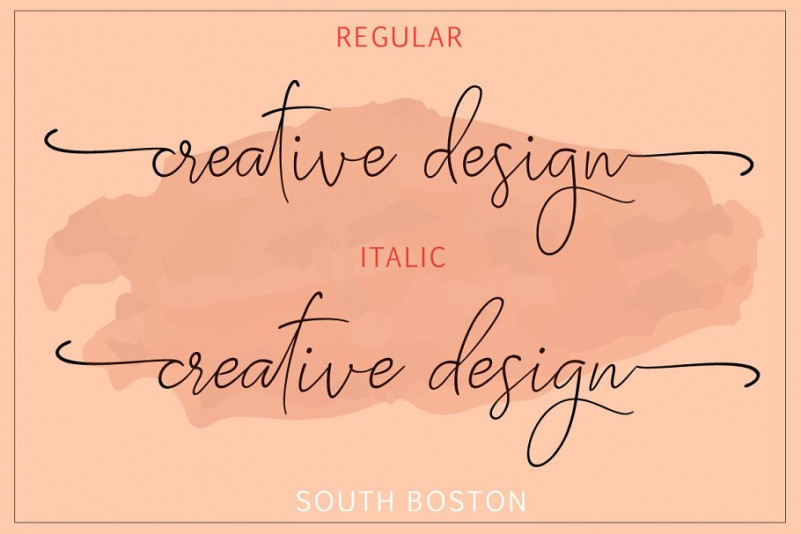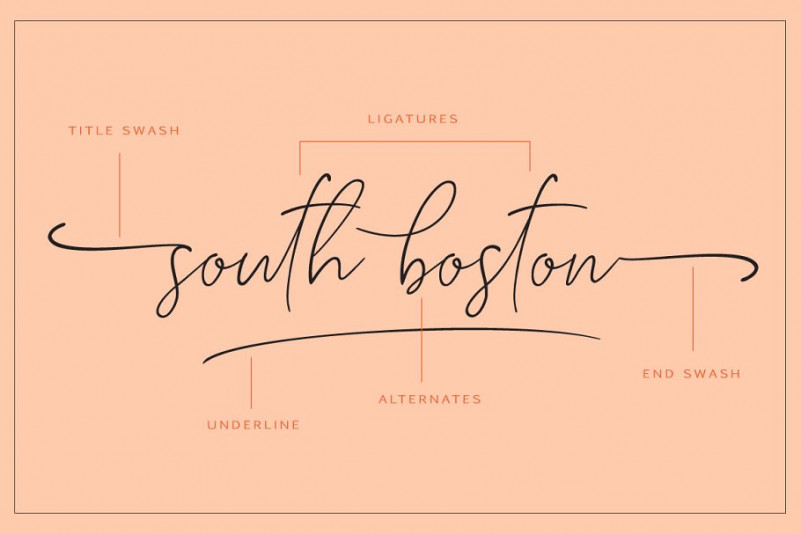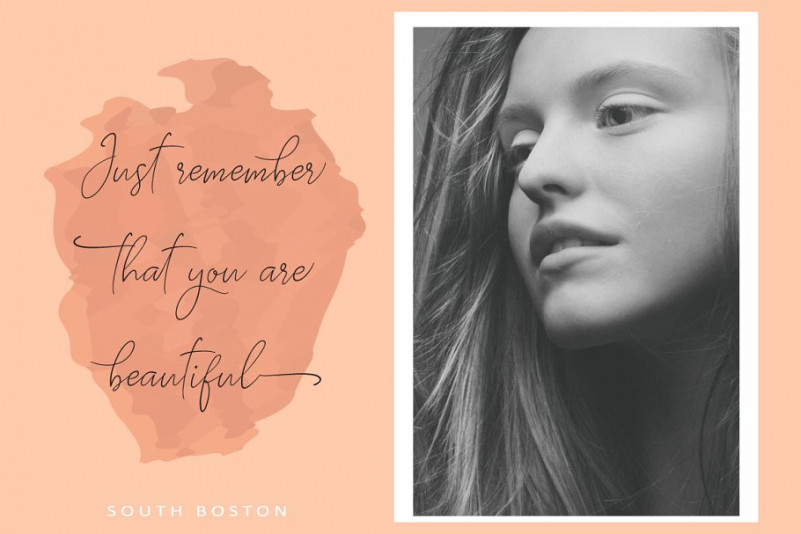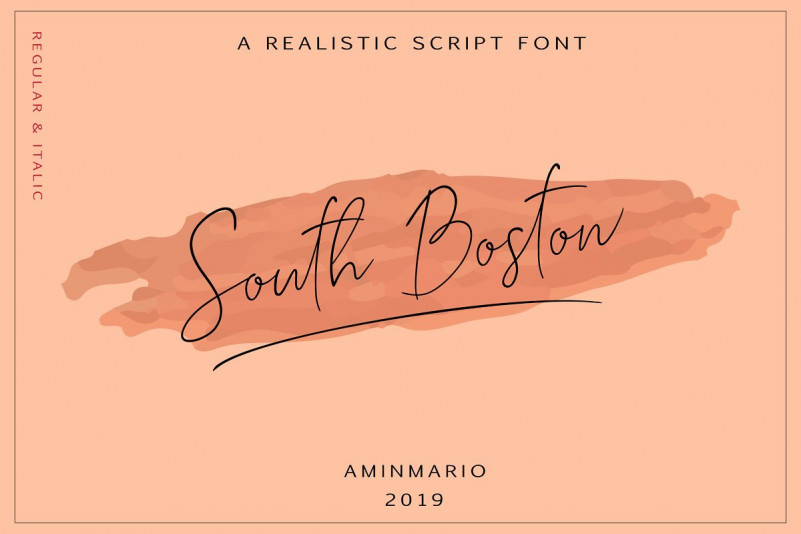
South Boston Script Font
South Boston Script Demo Font
Say hello to South Boston Realistic Script Font. A handwritten signature script, this handwritten script has been attentively written, with gentle curves to produce a font thats completely distinctive and original. It is designed and shared by aminmario. South Boston Script Font is a realistic handwritten script with a dancing baseline stylish , realistic script style make this font looks natural, classy and perfect for any awesome project that need hand writing taste. This is suitable for logos, watermarks on photography, signatures, branding, advertisement, quotes, invitations, stationery, wedding design,album covers, business cards, clothing, magazines, posters, and more!